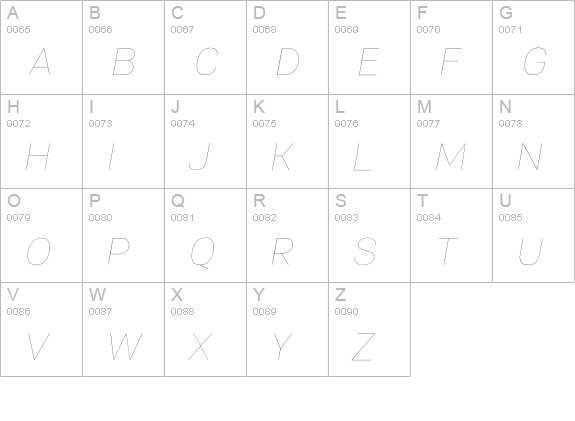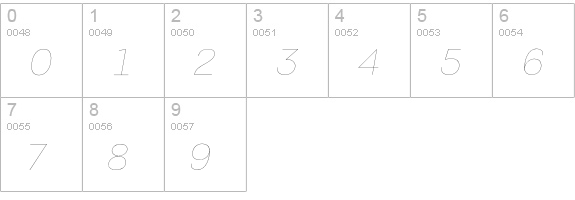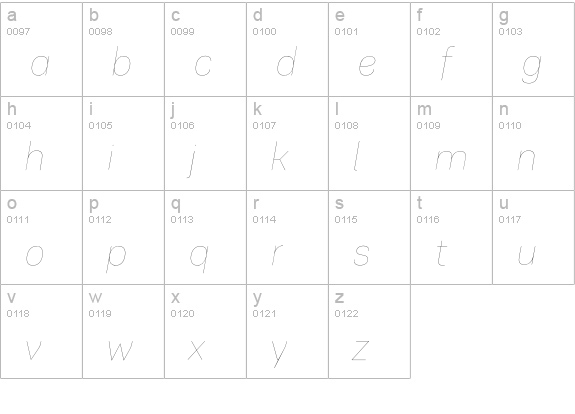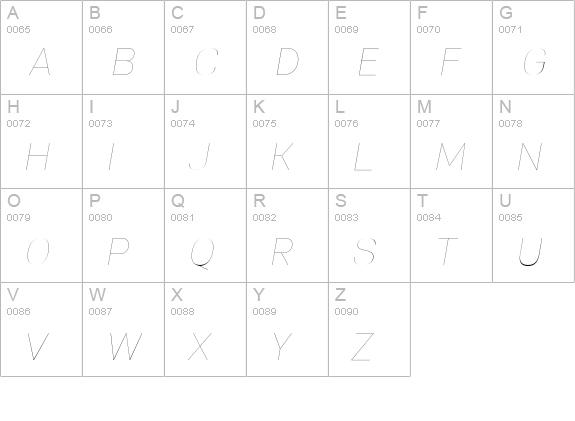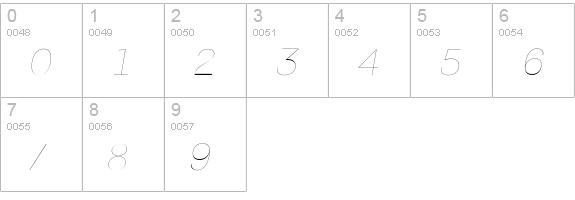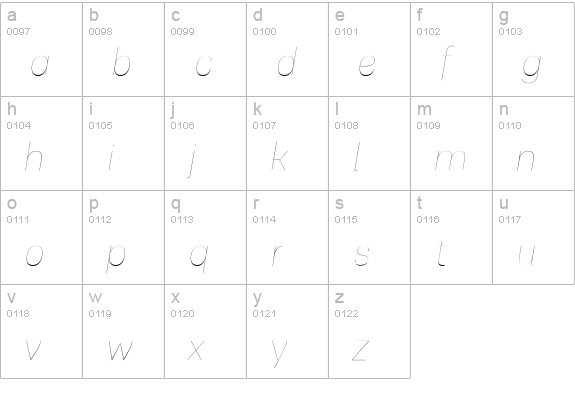
PFEncoreSansPro-HairlineItalic is a sleek and elegant typeface that exudes sophistication and modernity. With its delicate strokes and graceful italics, this font is perfect for adding a touch of refinement to any design project. The hairline weight gives it a light and airy appearance, making it ideal for use in headlines, branding, and other display purposes. What makes PFEncoreSansPro-HairlineItalic even more appealing is that it is available for free download at FontsMarket.com. This means that you can easily access this stunning font without any cost, allowing you to elevate your designs without breaking the bank. Don't miss out on the opportunity to enhance your projects with this exquisite typeface - download PFEncoreSansPro-HairlineItalic today and add a touch of elegance to your work.